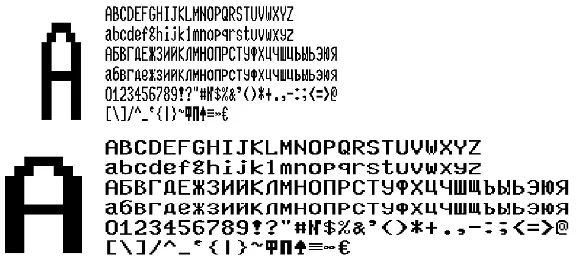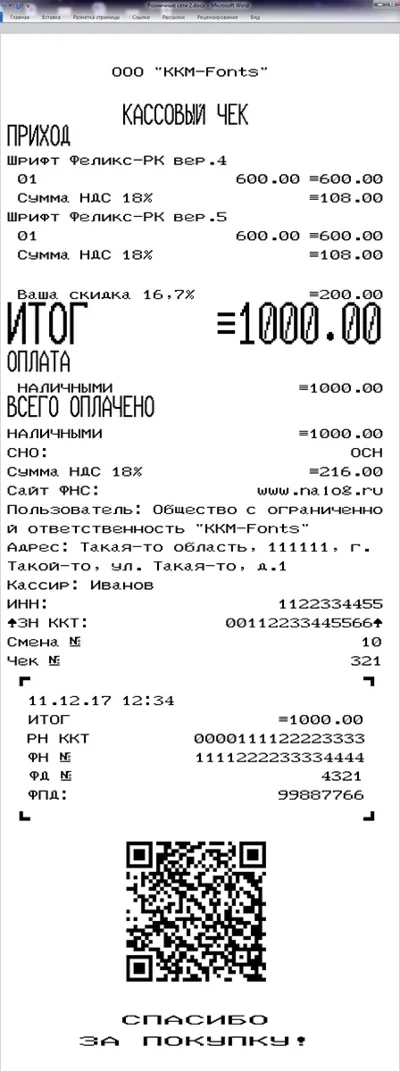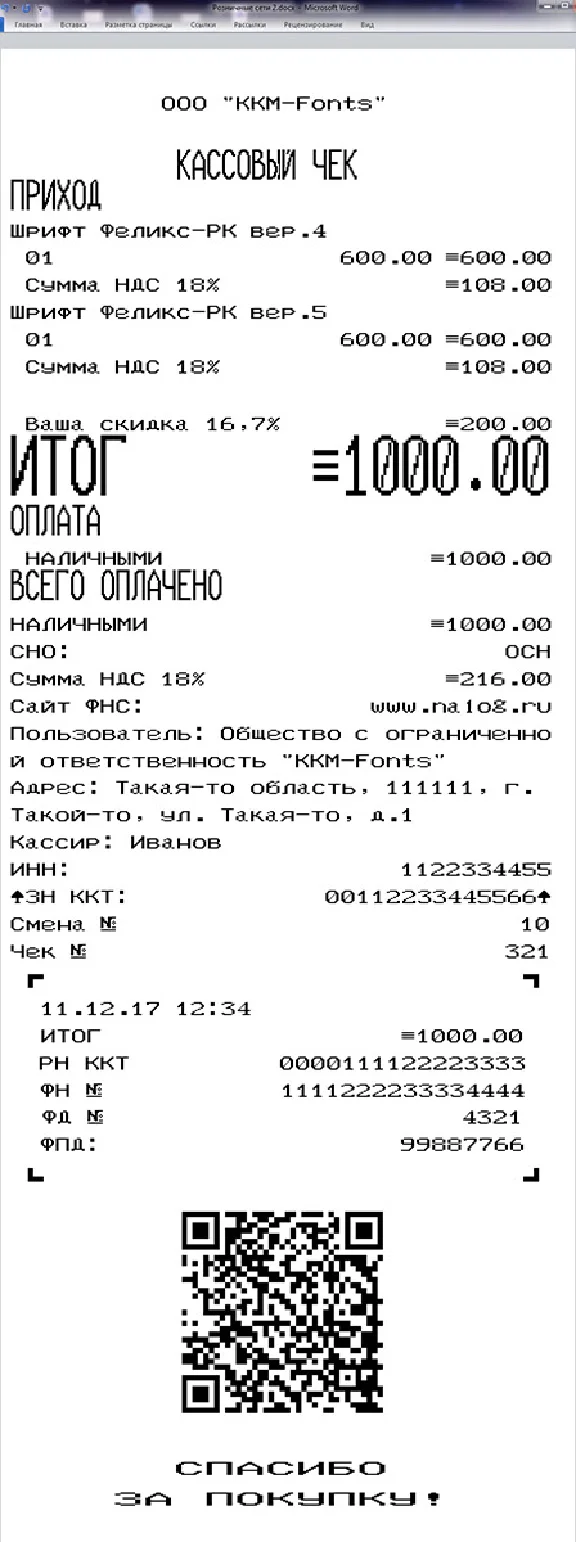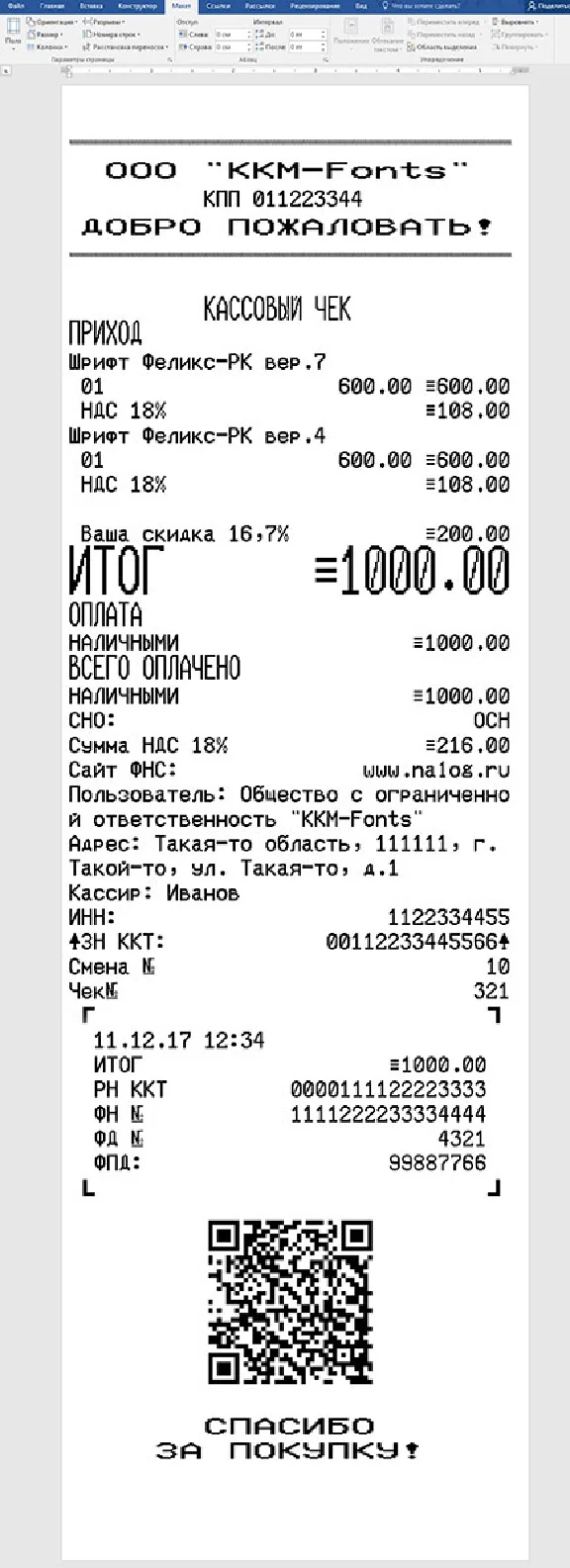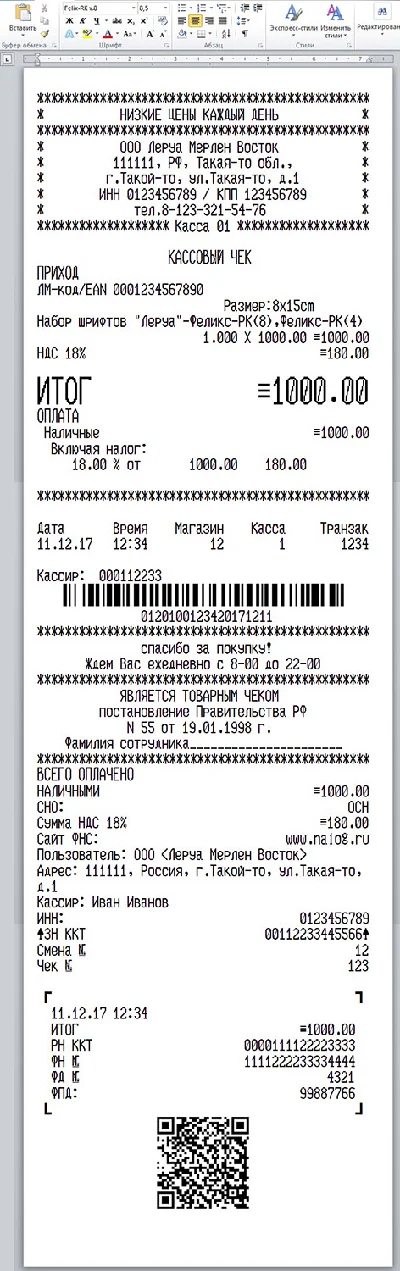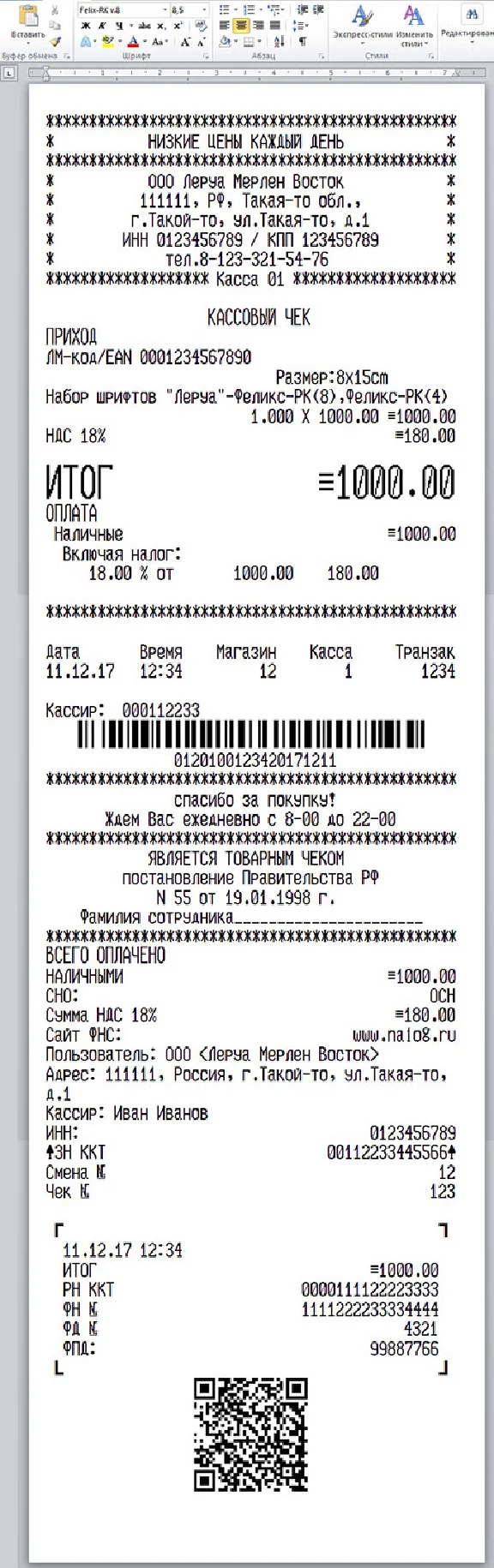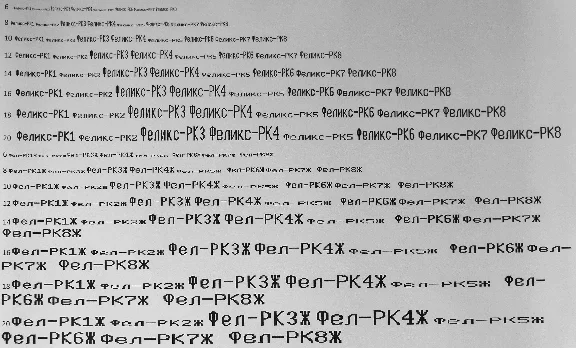
This full set of FELIX-RK cash registers contains 8 versions of fonts (1-8) in TTF format (Russian and English letters) for use in the Microsoft Word program. In the archive there are standard and wide fonts for each version (only 16 fonts) in TTF format and templates for check options. Often, shops use in one check several types of fonts in order to protect the check against forgery. This set will allow you to repeat any check printed on this unit, in particular LEROY MERLIN, CARAVAN, RUBLE BOOM, etc. You just need to install the fonts in the system (usually C: \ WINDOWS \ Fonts), open the template and start editing. Print checks preferably on a thermal printer, on the cash register tape. Although it is possible to print both on a jet and laser, with the possibility of output on fax paper. The best quality, of course, when printing on thermal printers.